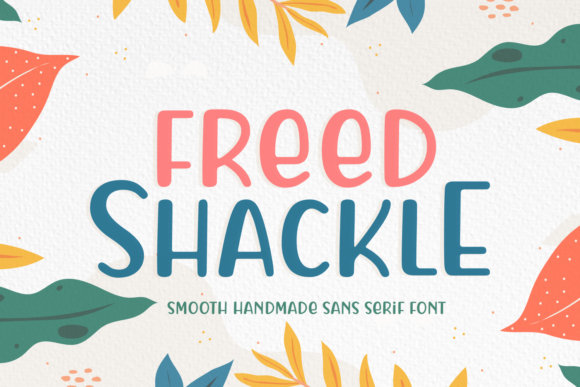
Unleash your creativity with Freed Shackle Font, a playful and distinctive sans serif font that will transform your designs into captivating masterpieces. Step into a world where letters dance, where words take on new life, and where your imagination has no bounds.
With Freed Shackle, you'll leave behind the ordinary and embrace the extraordinary. This font is a symphony of clean lines, smooth curves, and unexpected twists that will make your designs stand out from the crowd. Its unique character will add a touch of whimsy and intrigue, whether you're crafting logos, posters, social media posts, or any other visual creation.
Dive into a world of endless possibilities as Freed Shackle takes you on a typographic journey. Its distinct letterforms will captivate your audience, evoking a sense of wonder and delight. Let your creativity run wild as you explore the endless combinations and styles that this font offers.
Freed Shackle is more than just a font; it's an invitation to let your imagination soar. Embrace its playful spirit and see your designs come alive with personality and charm. It's the perfect choice for those who dare to be different, for those who seek to make a statement with their creations.